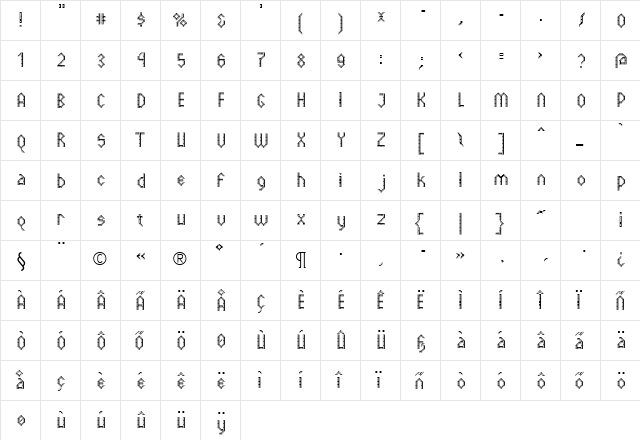
TwoTonedStoned Regular
Design Context for TwoTonedStoned Typeface
TwoTonedStoned is a composed and adaptable typeface that performs quietly and consistently across a wide range of design contexts.